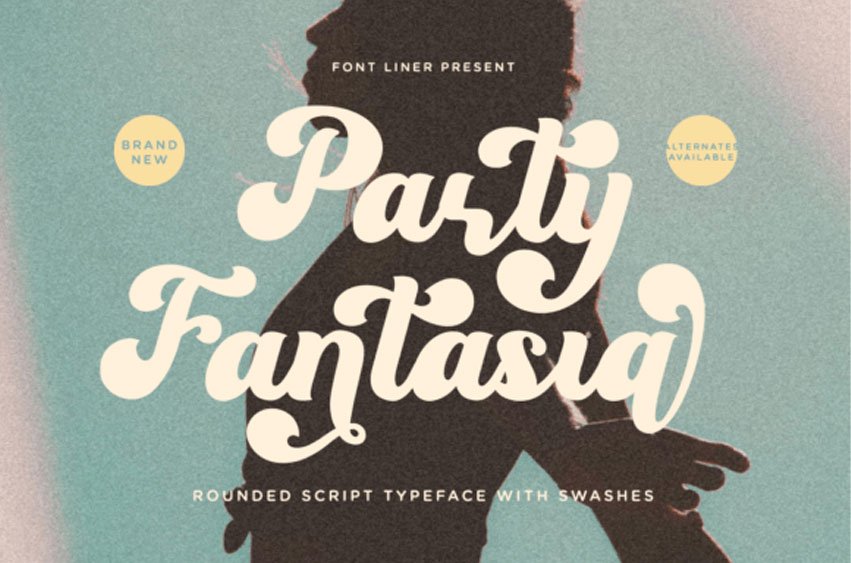
Party Fantasia Font is a lovely and delicate script font that exudes elegance and class.
This font was particularly crafted for those who need a beautiful and refreshing look to their designs.